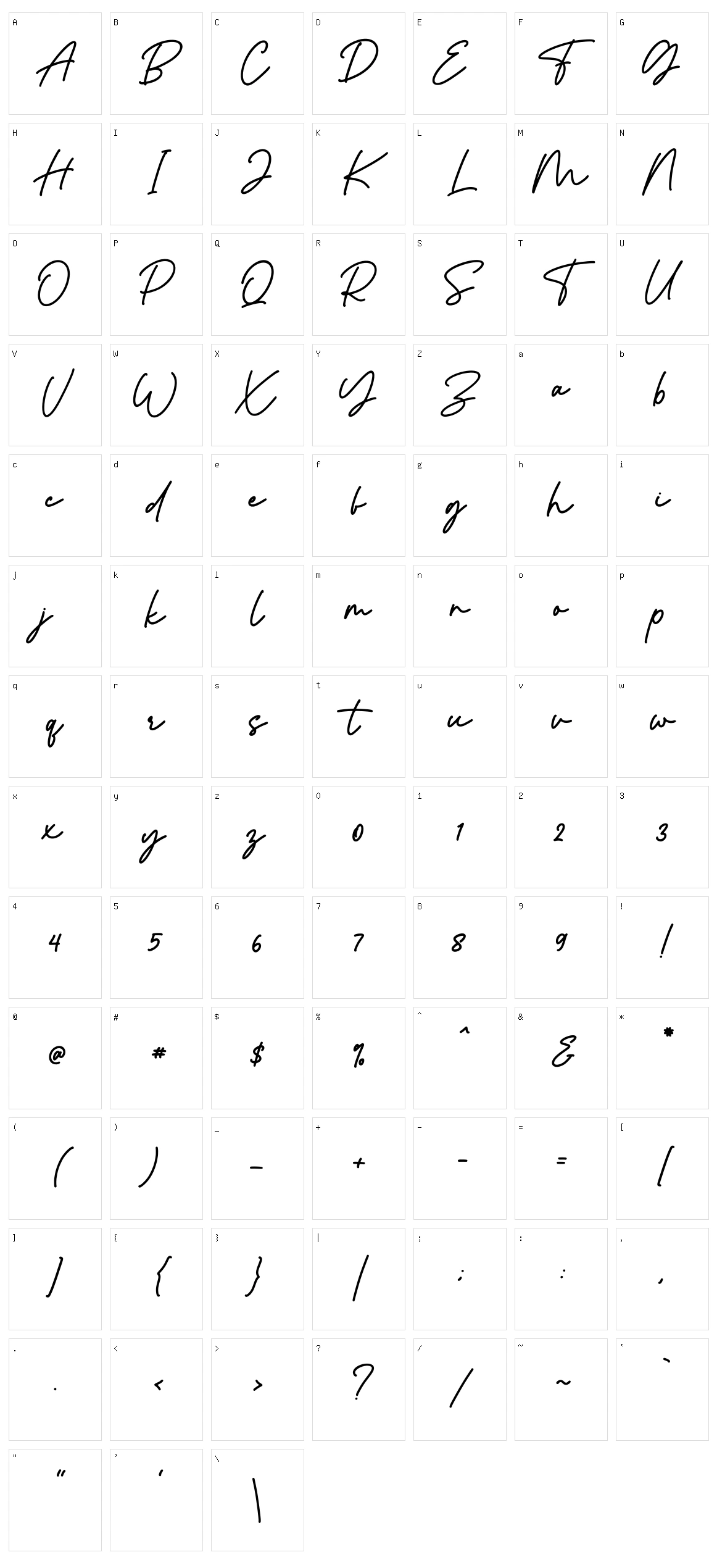
The free font Romedance is carefully designed by Pen Culture, showcasing a thoughtful balance of creativity and usability and falls under the Script font style. When you download the ZIP file, it contains only 44.37 KB of font files, making it lightweight and quick to download. Please review the license details below to understand permitted usage and distribution rights. If license information is not available, we recommend using this font for personal projects only or contacting the author directly for commercial usage permissions.